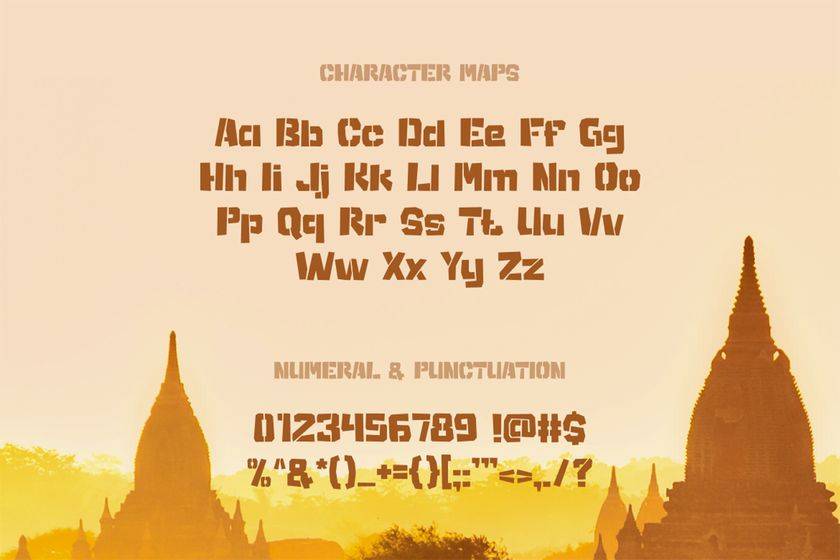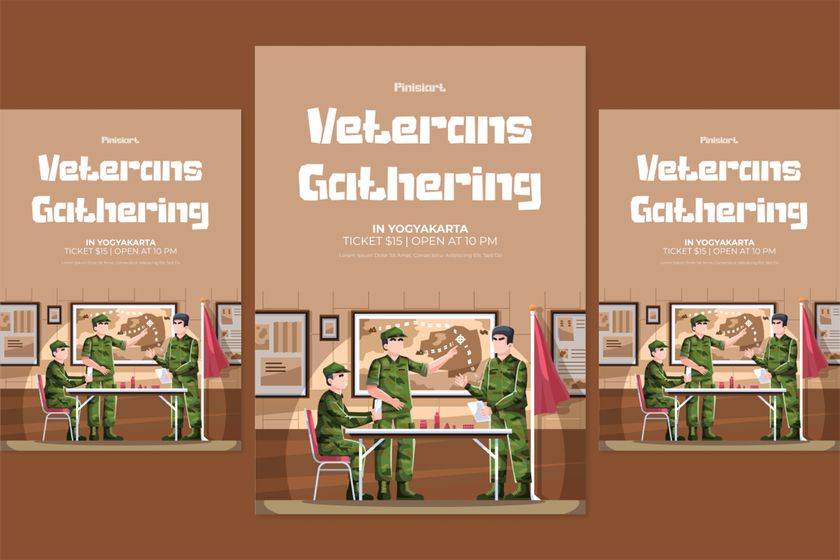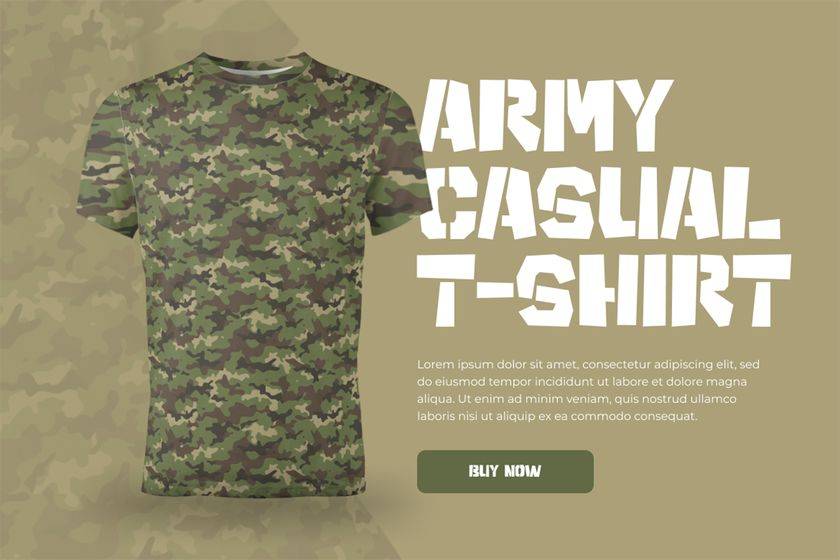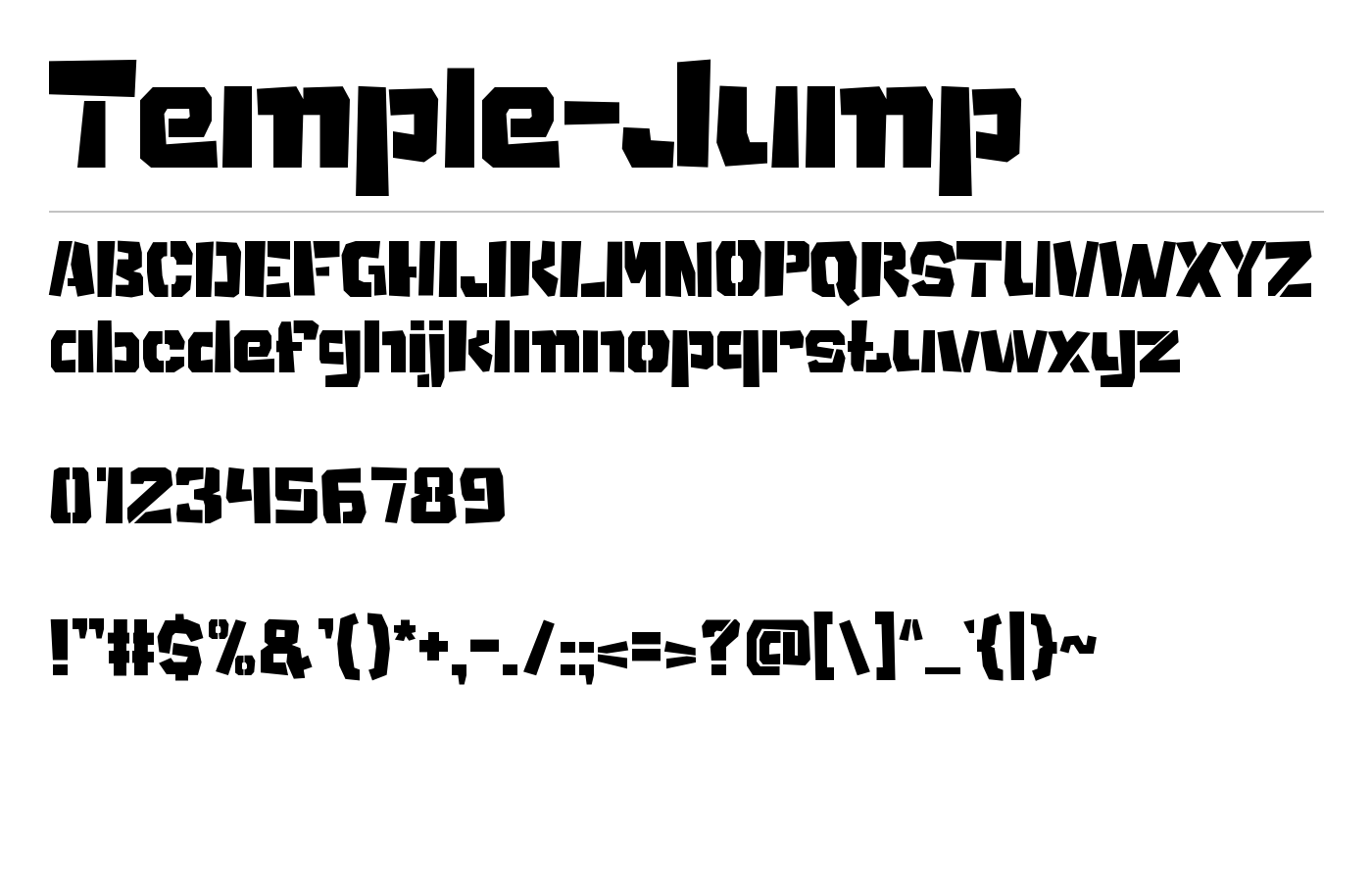
Temple Jump is a bold, blocky display font with a rugged, geometric style that evokes a playful yet adventurous vibe. Its irregular, slightly distressed shapes and strong presence make it ideal for eye-catching headlines, posters, or branding that wants to convey energy and a sense of exploration. This font works well in creative projects that need a dynamic and memorable look with a touch of raw, handcrafted character.
Temple Jump Font
About Temple Jump Font